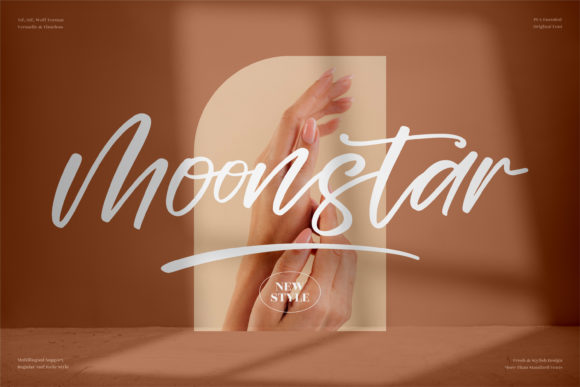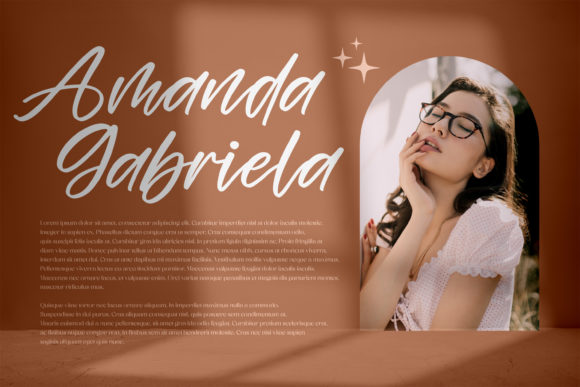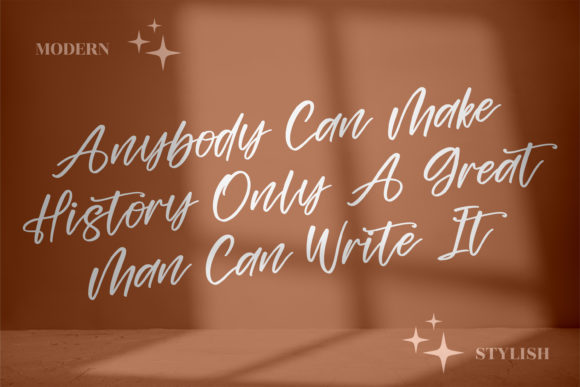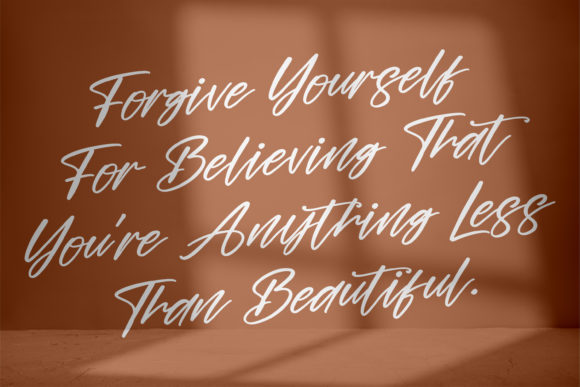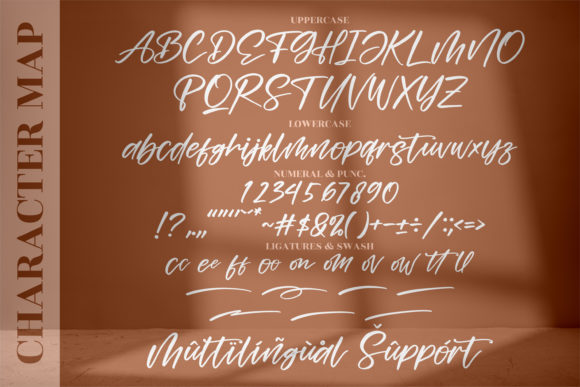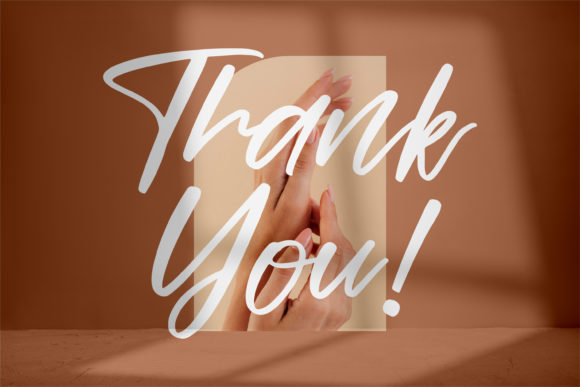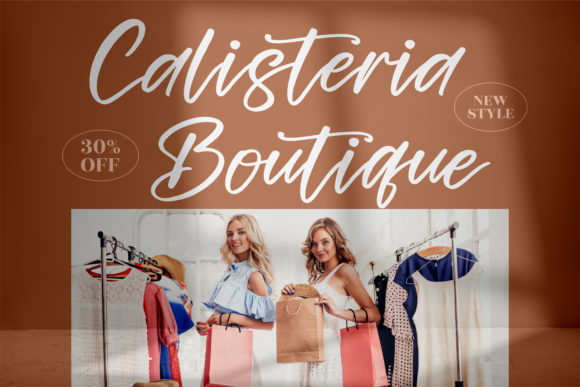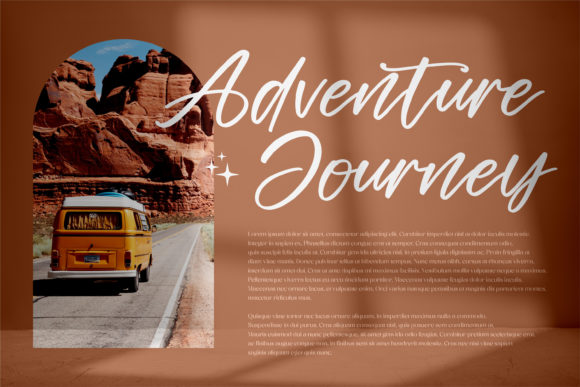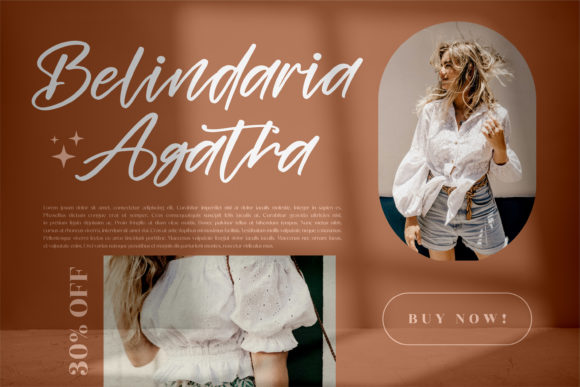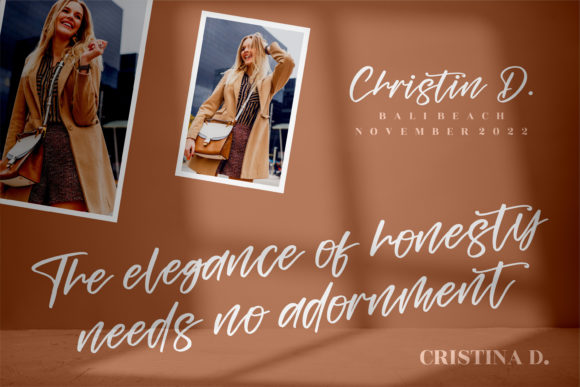
Moonstar Font
About Moonstar Font
Moonstar is a romantic and sweet calligraphy typeface with characters that dance along the baseline. It will add a luxury spark to any design project that you wish to create!